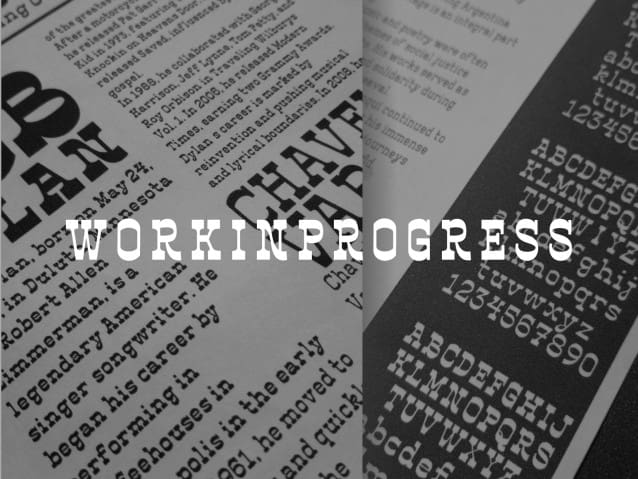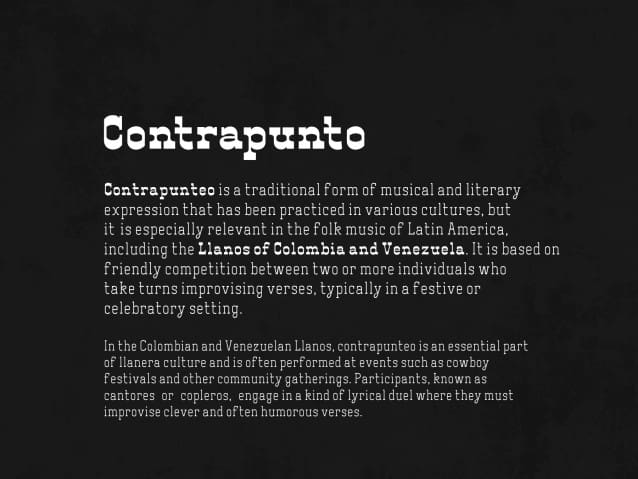
ET Contrapunto Font
ET Contrapunto Font, we draw inspiration from the timeless tradition of storytellers who craft narratives that transcend boundaries. These storytellers, through their artistic expressions and crafts, serve as cultural bridges, uniting people beyond the lines on a map.
In our endeavor to pay homage to these cultural catalysts, ET Contrapunto emerges as a reverse contrast serif typeface, offered in five distinct weights, with a variable version available. Its character set currently includes (A-Z/a-z/0-9), and early access is now open.
We envision future updates, including weights starting from Hairline and extended language support, as we seek the necessary backing to continue this typographic journey.